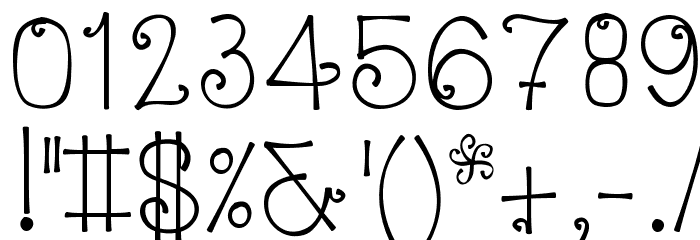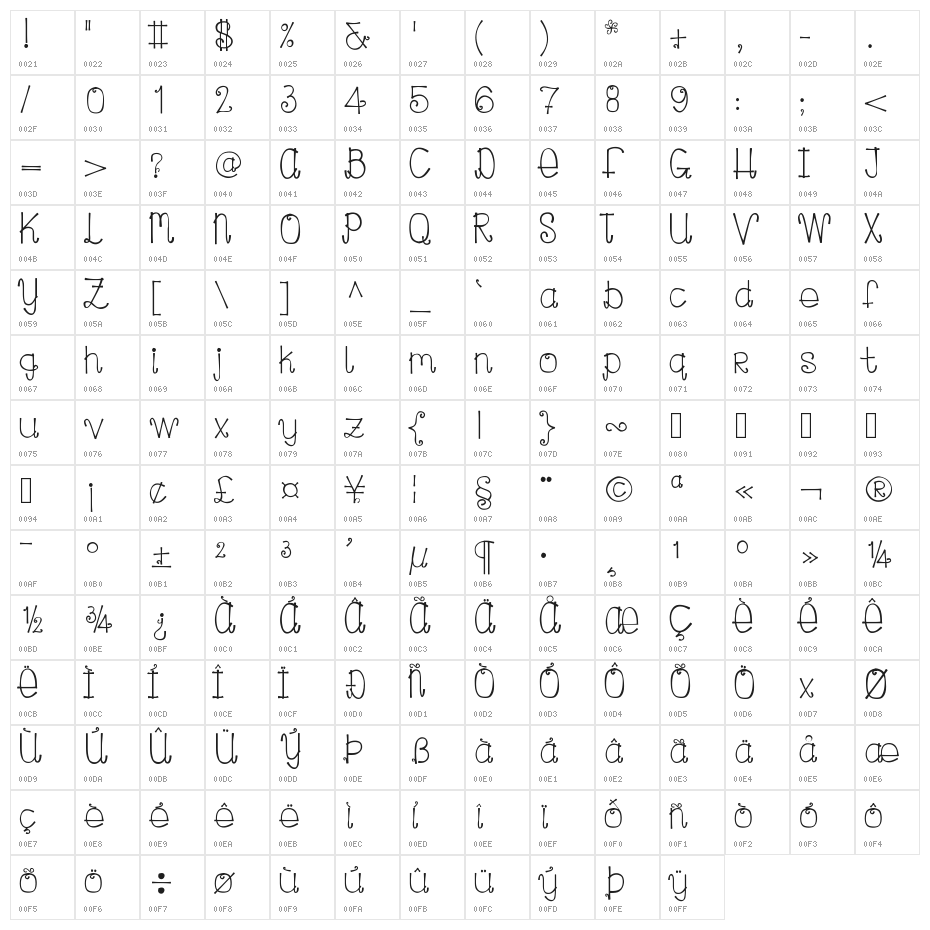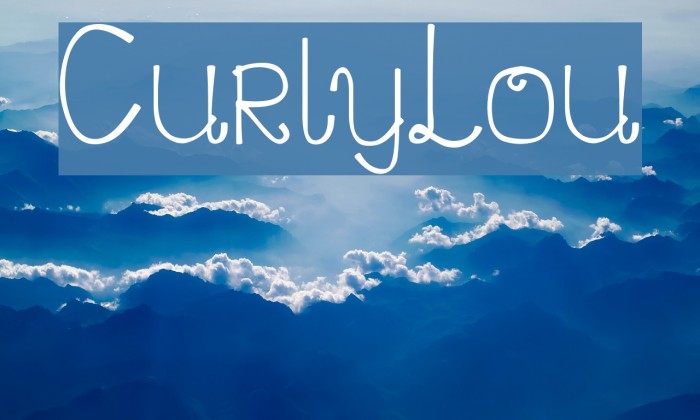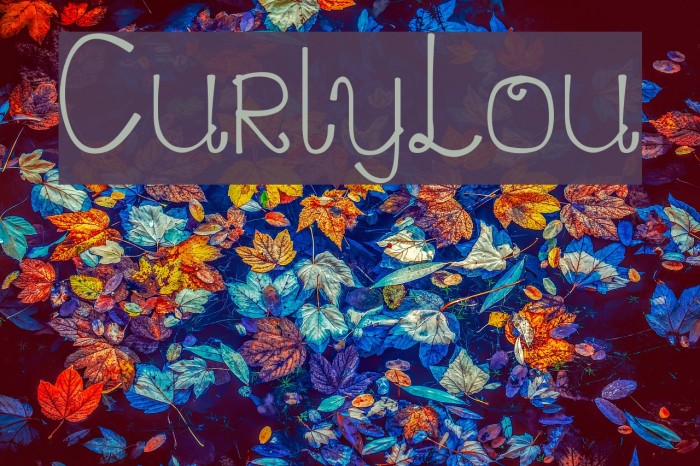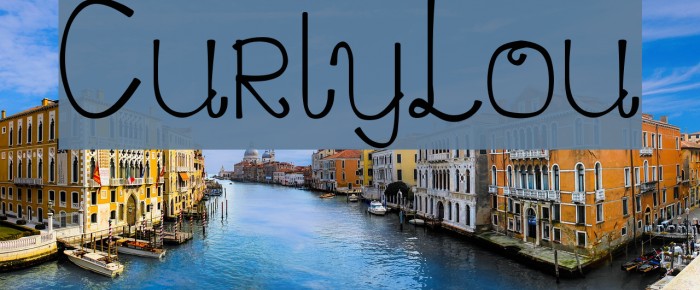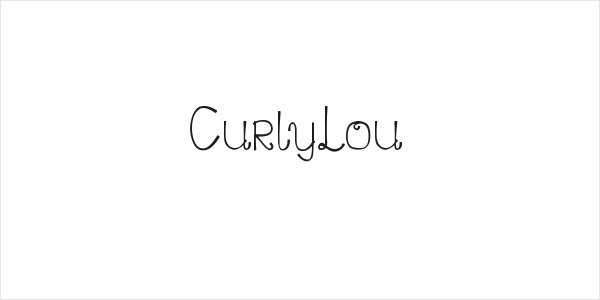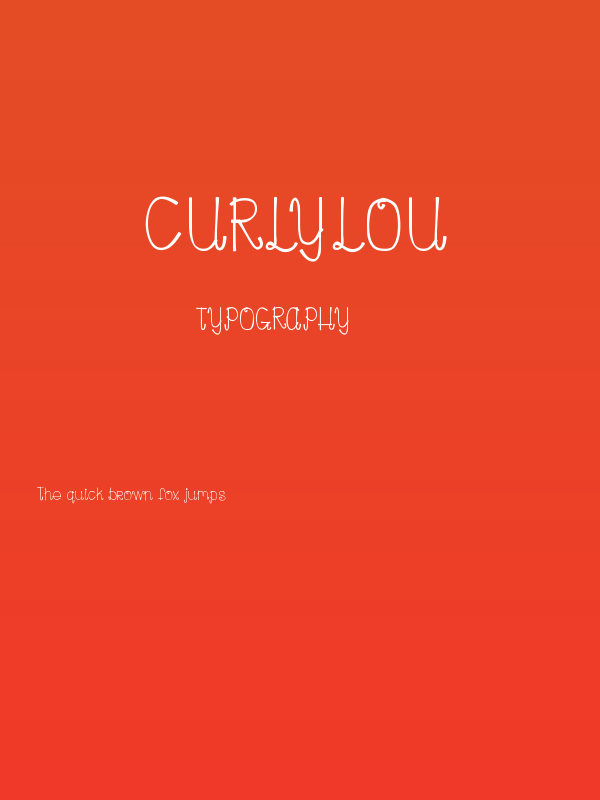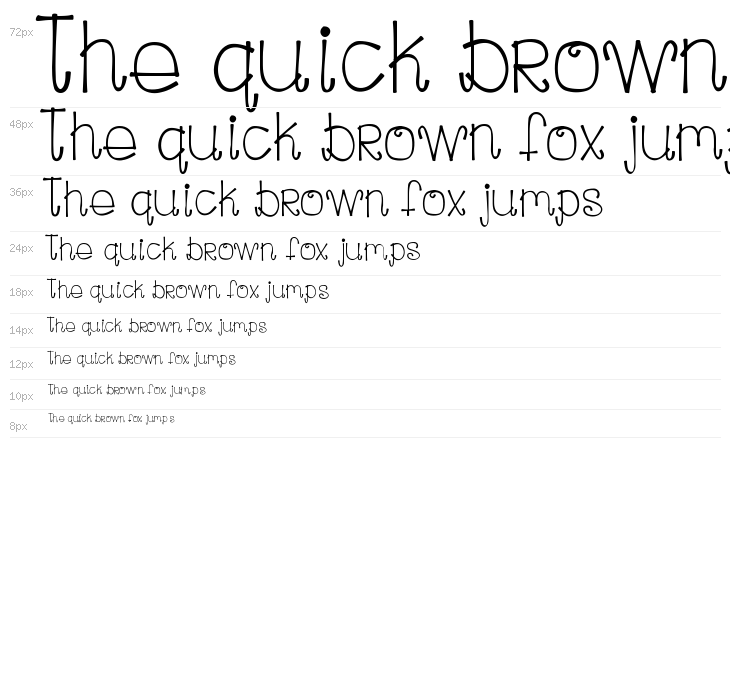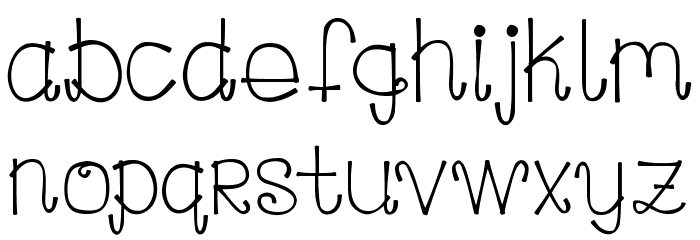
CurlyLou Font
CurlyLou Description
This playful and whimsical font features a unique curly design that adds a touch of fun and creativity to any project. The characters are crafted with a consistent loop and swirl pattern, giving them a distinct personality. The uppercase and lowercase letters maintain a cohesive style, while the numbers and special characters follow suit with their own charming twists. This font's lively and animated appearance makes it ideal for projects that require a lighthearted and engaging feel. Its distinctive style ensures that it stands out, making it perfect for eye-catching designs.
Overall StyleWhimsical
Proposed ProjectsGreat for children's books, playful branding, party invitations, and creative posters.